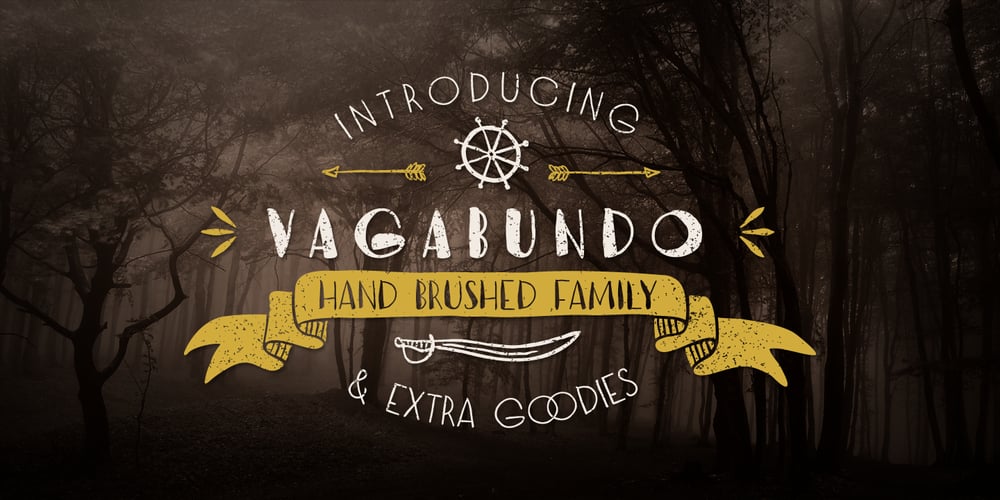
Vagabundo Font Family was designed by Juraj Chrastina and published by Juraj Chrastina. Vagabundo contains 7 styles and family package options. Vagabundo is a hand brushed family with three styles and some extra goodies. You can combine different weights with icons, ornaments and banners to get a nice original design. You can download the instruction PDF here.